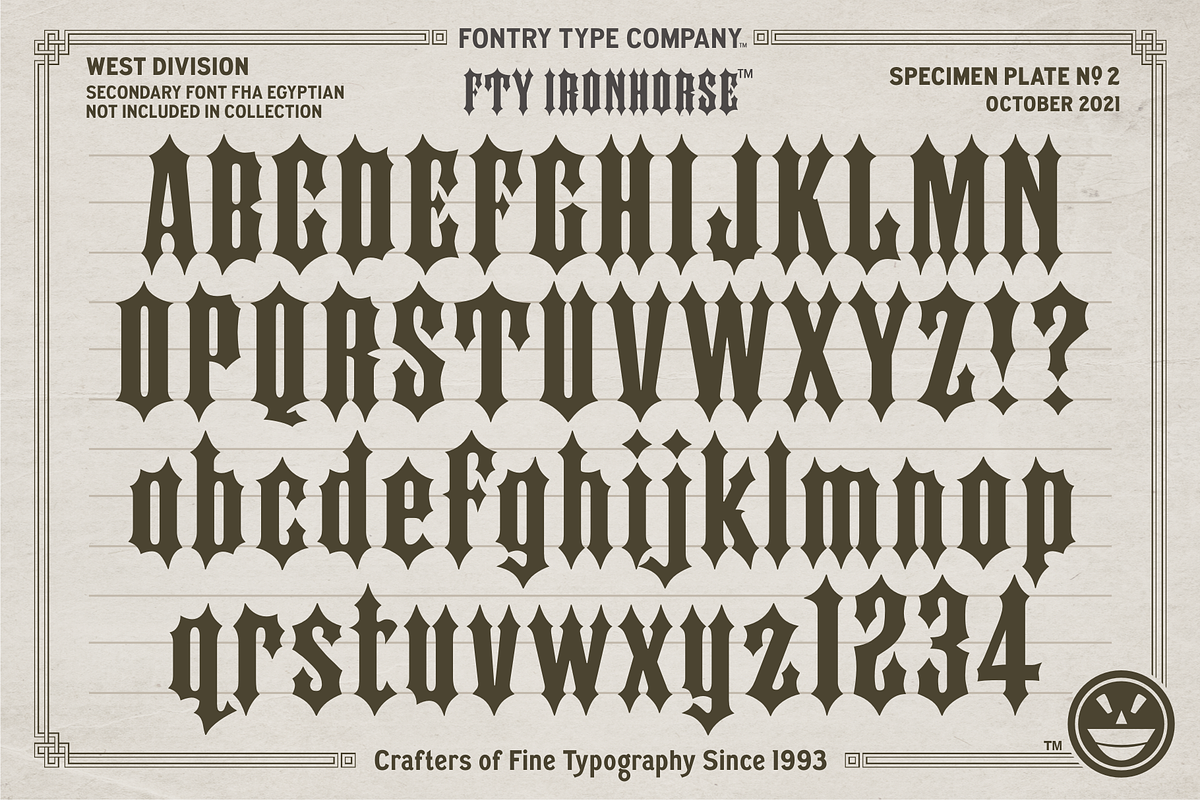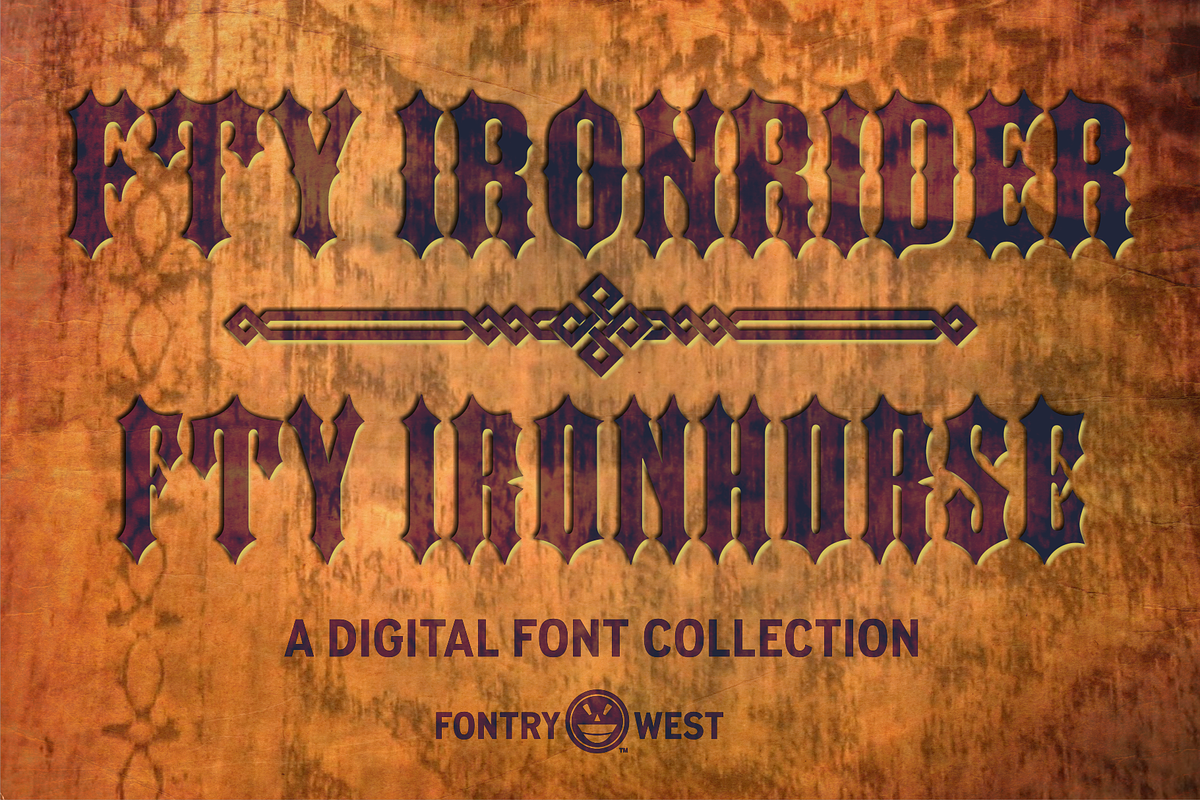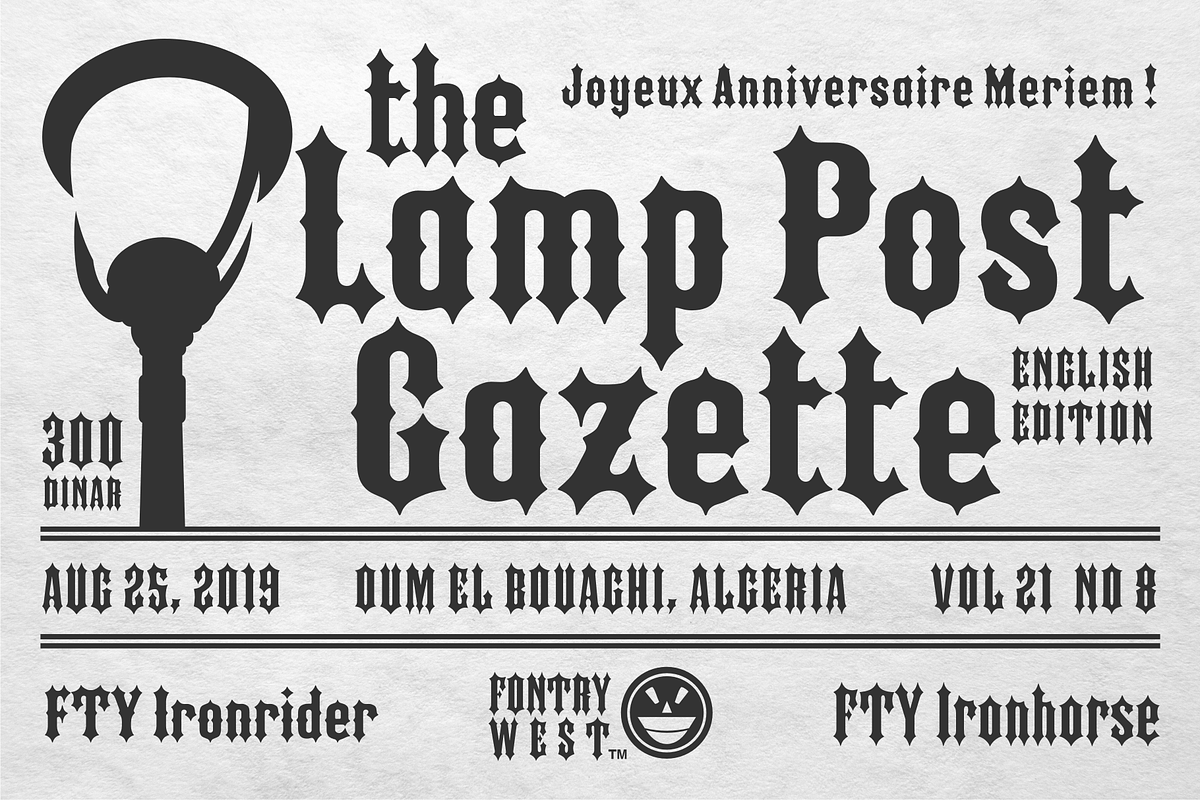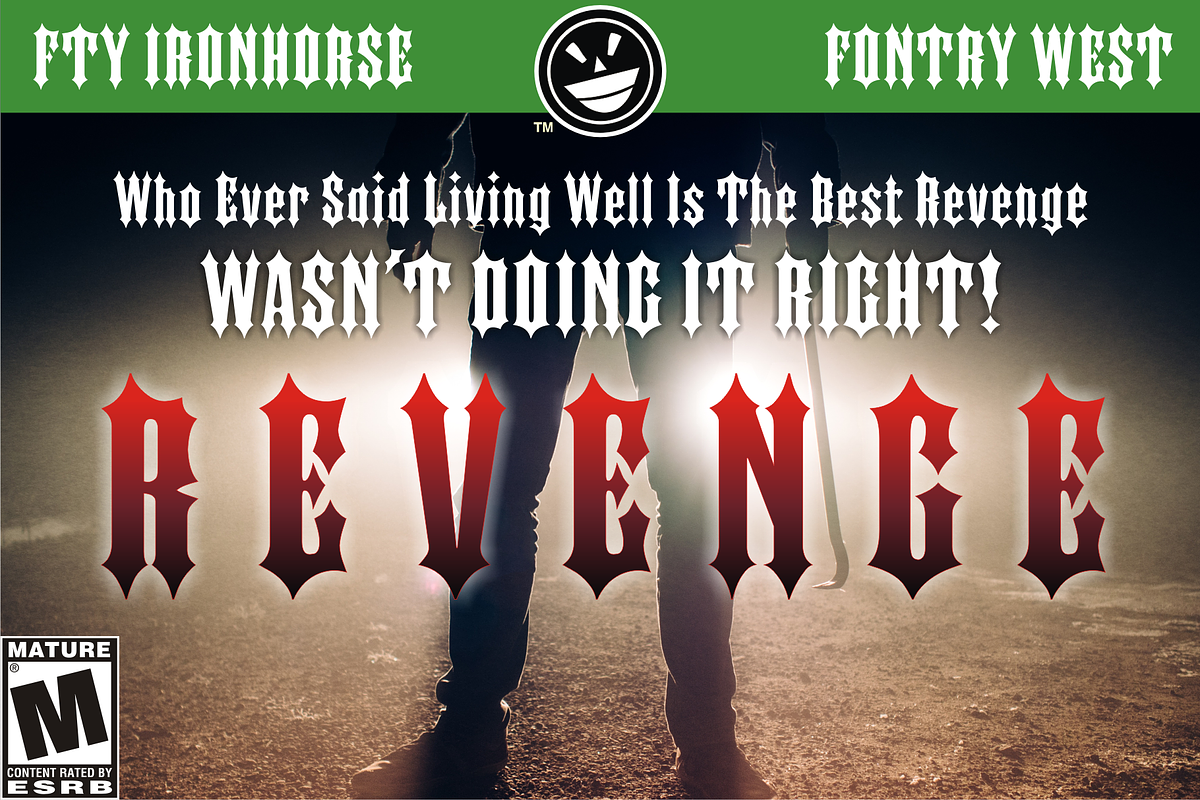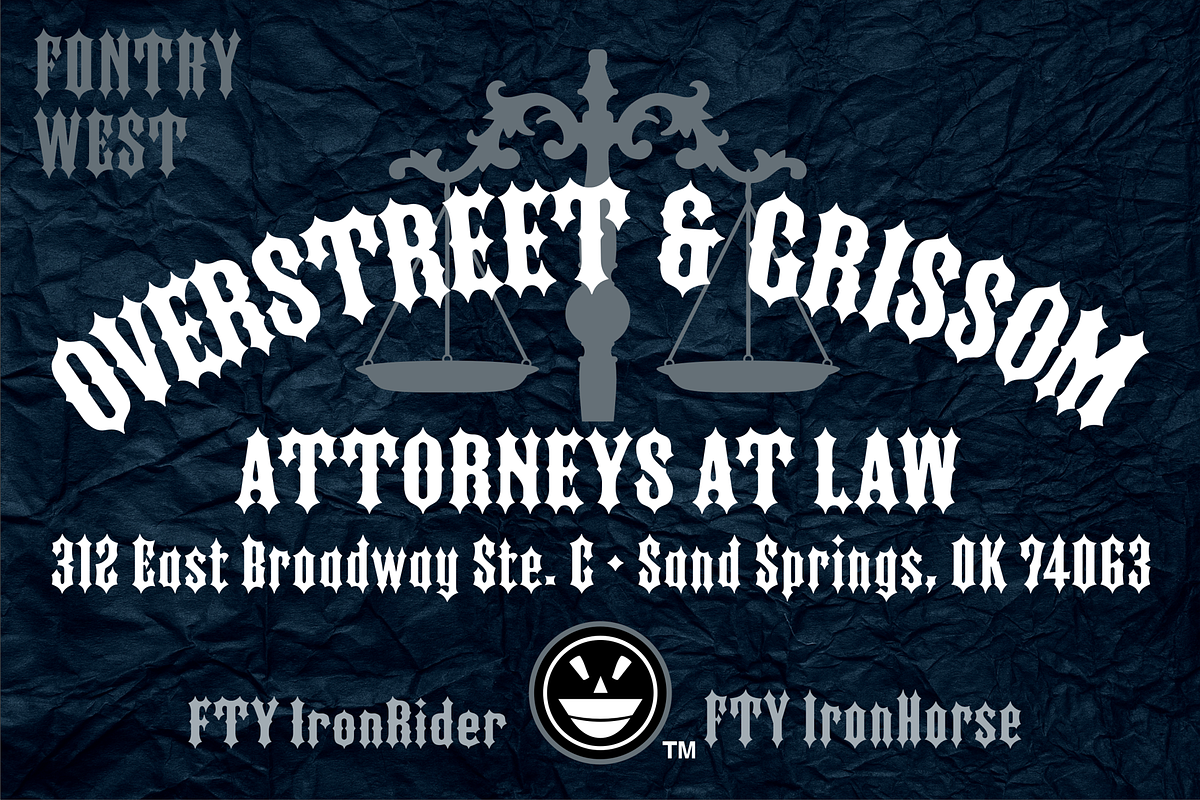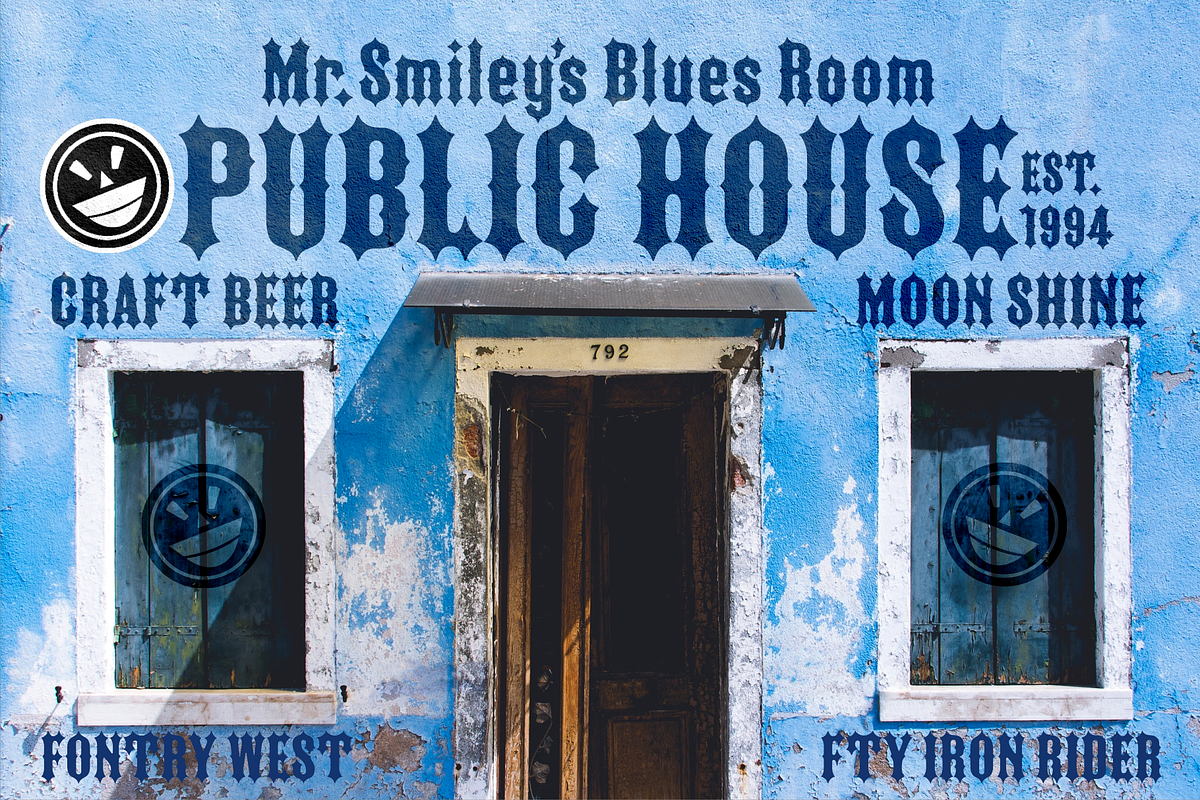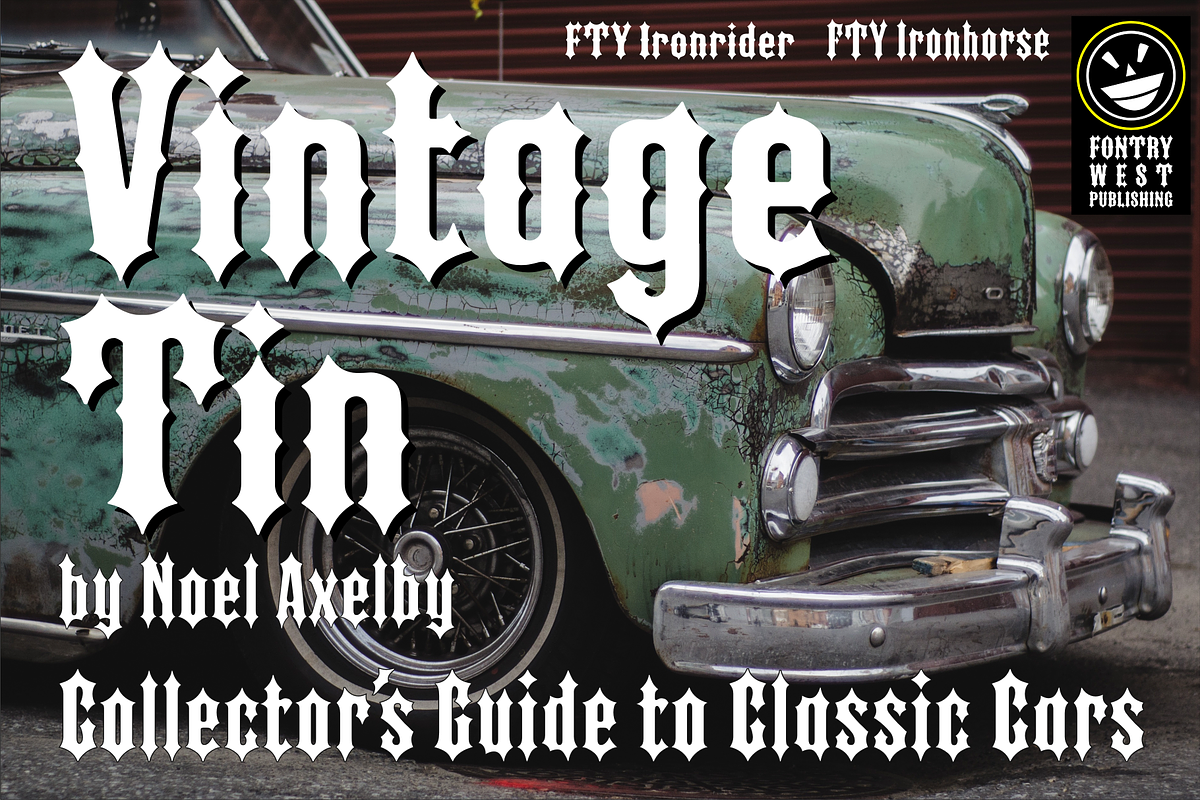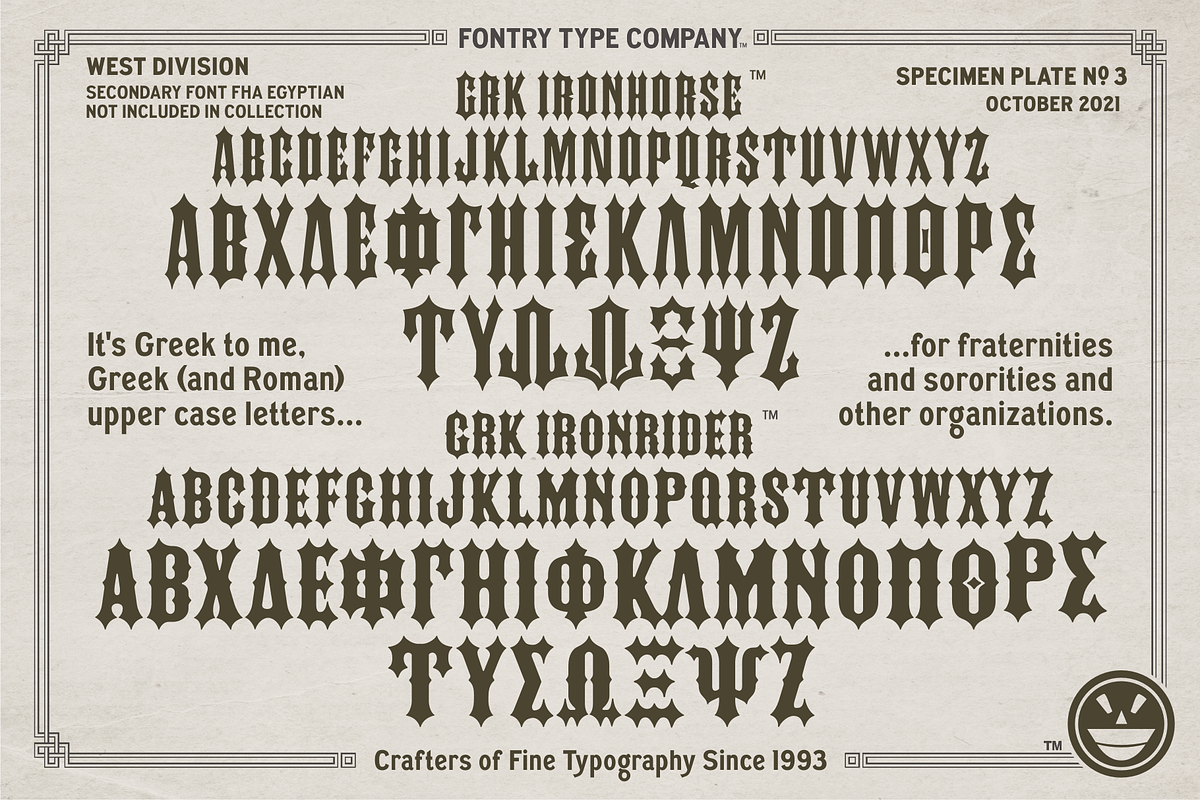
FTY Ironhorse & FTY Ironrider
FTY Ironhorse™ and FTY Ironrider™ Collection from Fontry West™
The Fontry has revived two Tuscan wood cut classics for use in the digital age. Now we couldn’t just dust off a couple of oldies but goodies, that would be too easy. We expanded these popular powerhouses with a full range of characters for your dramatic layouts. Did we stop there? Heck no! In a break from tradition, we created a full range of lowercase characters to join in on the action. This gives these old faces new versatility. So rev up your motors and challenge the open or jazz up your trendy boutique with these two bold faces. Toss out your preconceptions and venture onto outrageous avenues and make certain FTY Ironhorse and FTY Ironrider are in your toolbox.
Features...
Four Faces:
- FTY Ironhorse™ Complete font with selected Latin A, Latin B and Latin X support.
- FTY Ironrider™ Complete font with selected Latin A, Latin B and Latin X support.
- GRK Ironhorse™, Latin and Greek capitals for the fraternity and sorority crowd.
- GRK Ironrider™, Latin and Greek capitals for the fraternity and sorority crowd.